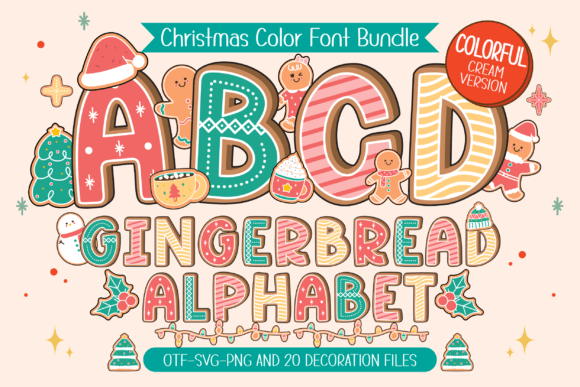
Introducing the Gingerbread Font: A Colorful Christmas Delight
Ah, the holiday season is upon us, and you know what that means – a flurry of design projects, gift-giving, and endless cups of hot cocoa. I still remember the year I was tasked with creating a Christmas-themed poster for a client, only to find myself stuck on the perfect font. The design was almost complete, but it was missing that special something. That’s when I stumbled upon the Gingerbread Alphabet font, and it was love at first sight! 🎉
The Gingerbread Alphabet: A Festive Font for the Holidays
The Gingerbread Alphabet is a playful Christmas font that captures the festive spirit of gingerbread cookies topped with vibrant, colorful cream. This cheerful color font comes in four Christmas-themed color styles and includes 20 bonus matching clip arts, making it the perfect choice for adding holiday joy to your Christmas posters, T-shirts, branding, custom DIY craft projects, quotes, personalized names, and more.
An Honest Review: The Good and the Quirks
- ✨ Colorful and playful: The Gingerbread Alphabet is a game-changer for anyone looking to add a pop of color to their designs.
- ✅ Versatile: With four color styles and 20 bonus clip arts, this font is perfect for a wide range of design projects.
- 🎉 Festive spirit: The font’s gingerbread-inspired design is sure to put you and your audience in the holiday mood.
A Practical Guide to Using the Gingerbread Alphabet
The Designer Inspiration Behind the Gingerbread Alphabet
The Gingerbread Alphabet was inspired by the festive delight of gingerbread cookies topped with vibrant, colorful cream. The designer’s goal was to create a font that captures the playful and cheerful spirit of the holiday season, while also providing a versatile and practical tool for designers.